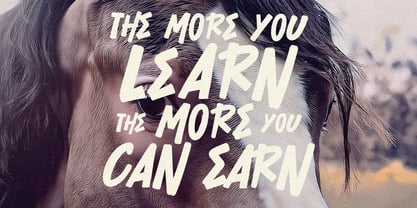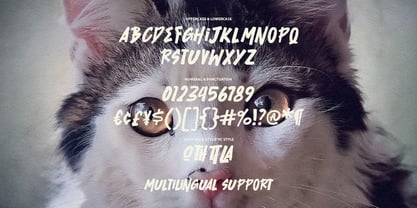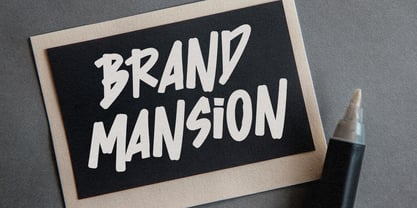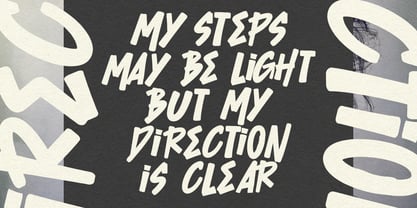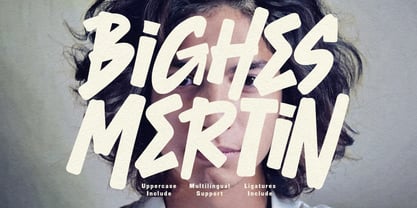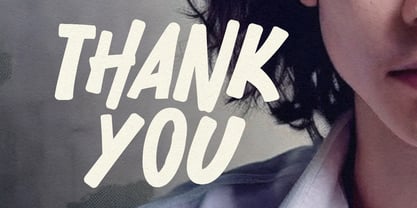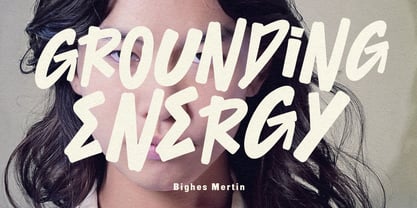
MC Bighes Mertin
von Maulana Creative
Die Schriftfamilie MC Bighes Mertin wurde von Gilang Maulana entworfen und von Maulana Creative veröffentlicht. MC Bighes Mertin enthält 1 Stile. Mehr über diese Familie
Bighes Mertin is a raw, energetic display font inspired by the spontaneous art of street culture. Featuring thick, confident strokes and a realistic marker texture, this font captures the gritty essence of urban graffiti. Its bold weight and edgy letterforms make it perfect for high-impact designs such as branding, hip-hop posters, music album covers, and skate culture graphics. With multilingual support and unique ligatures, Bighes Mertin offers the versatility needed to bring an authentic, "handmade" street vibe to any modern creative project.
Designer: Gilang Maulana
Foundry: Maulana Creative